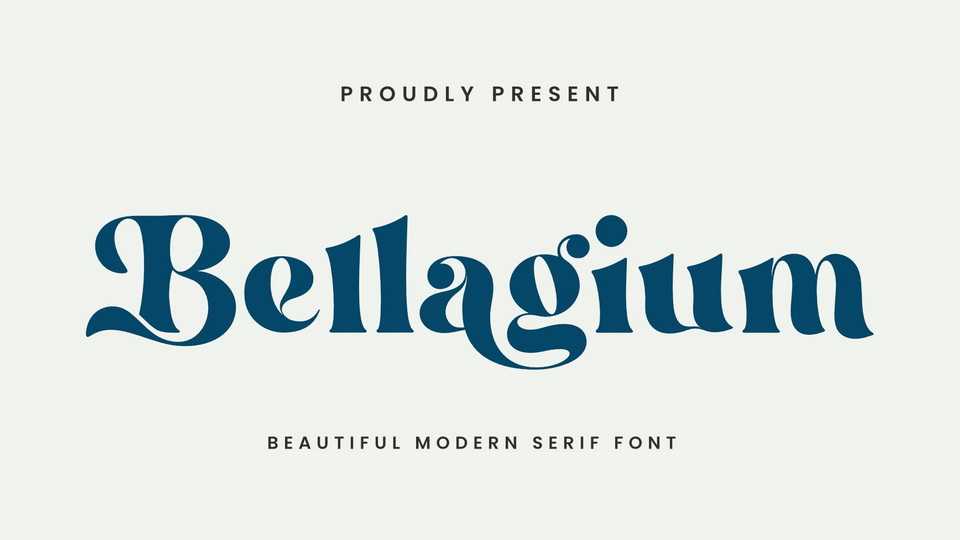
Download Bellagium font, an elegant serif typeface that is truly unique, with a more modern style and unique curves that add a special and glamorous feel to your designs.
Designer: Silverdav Studio